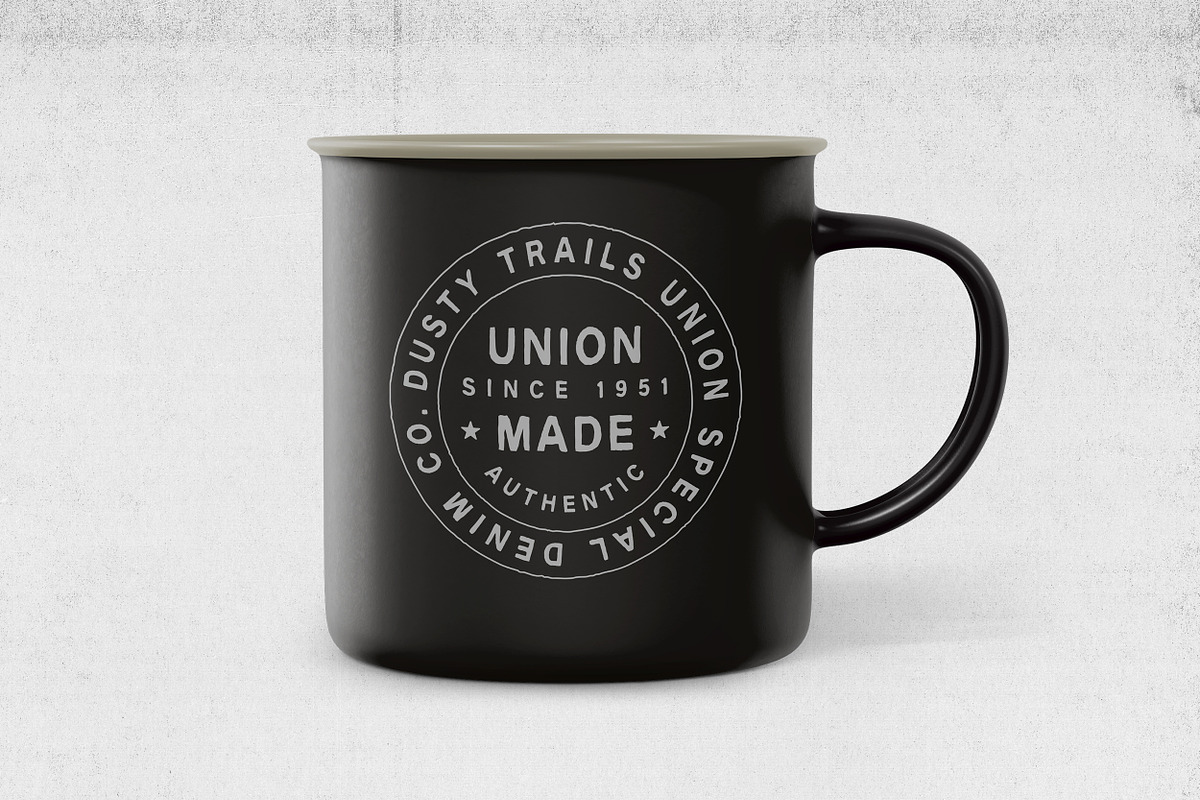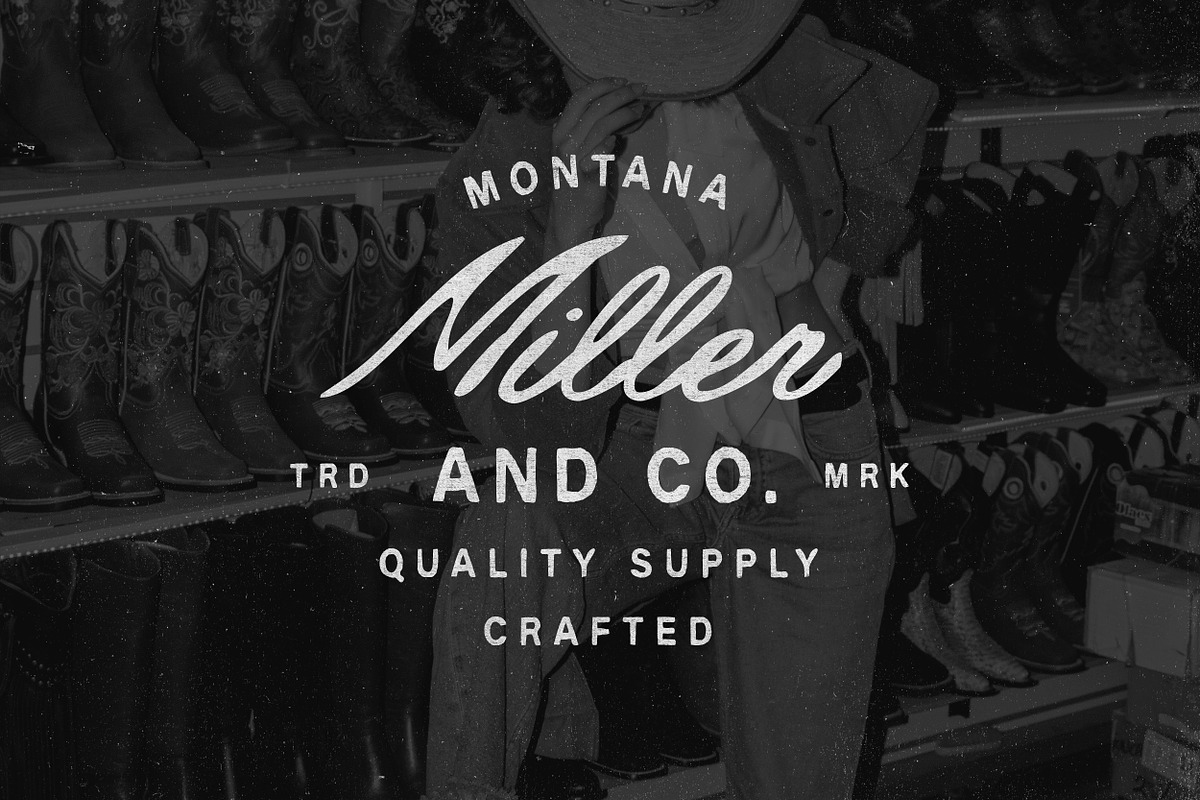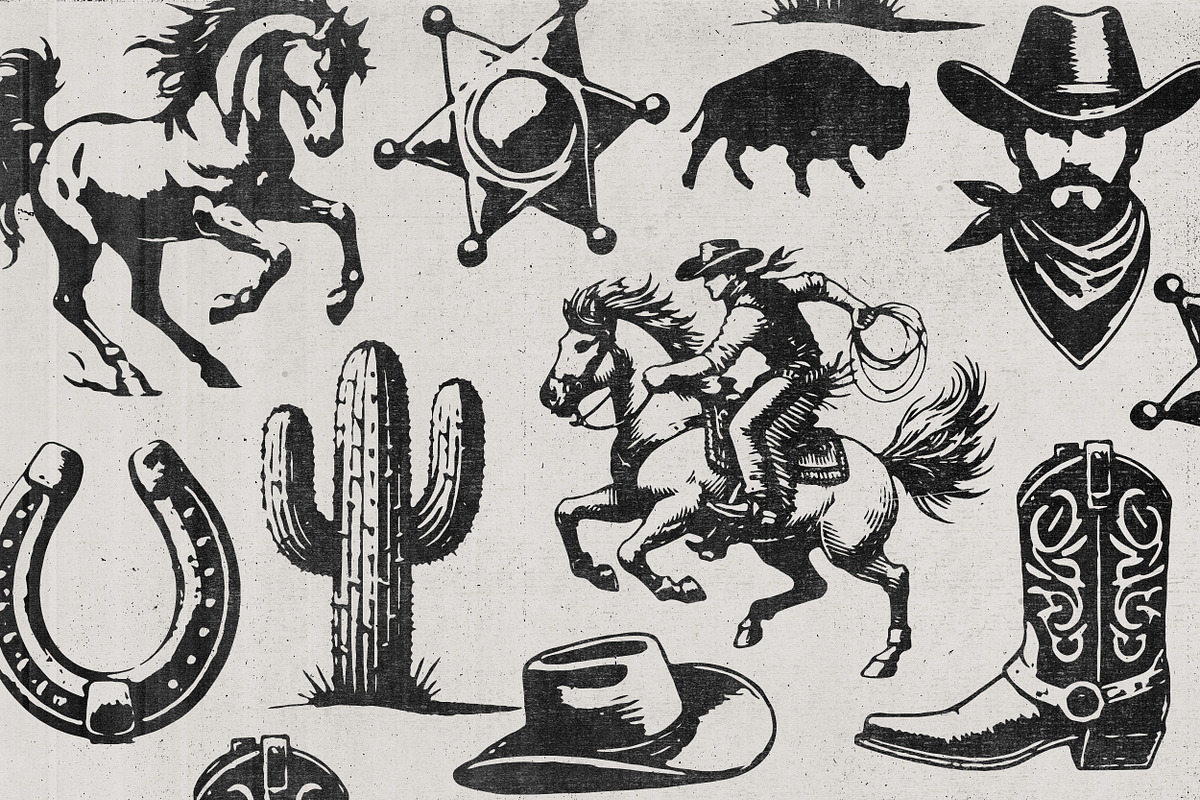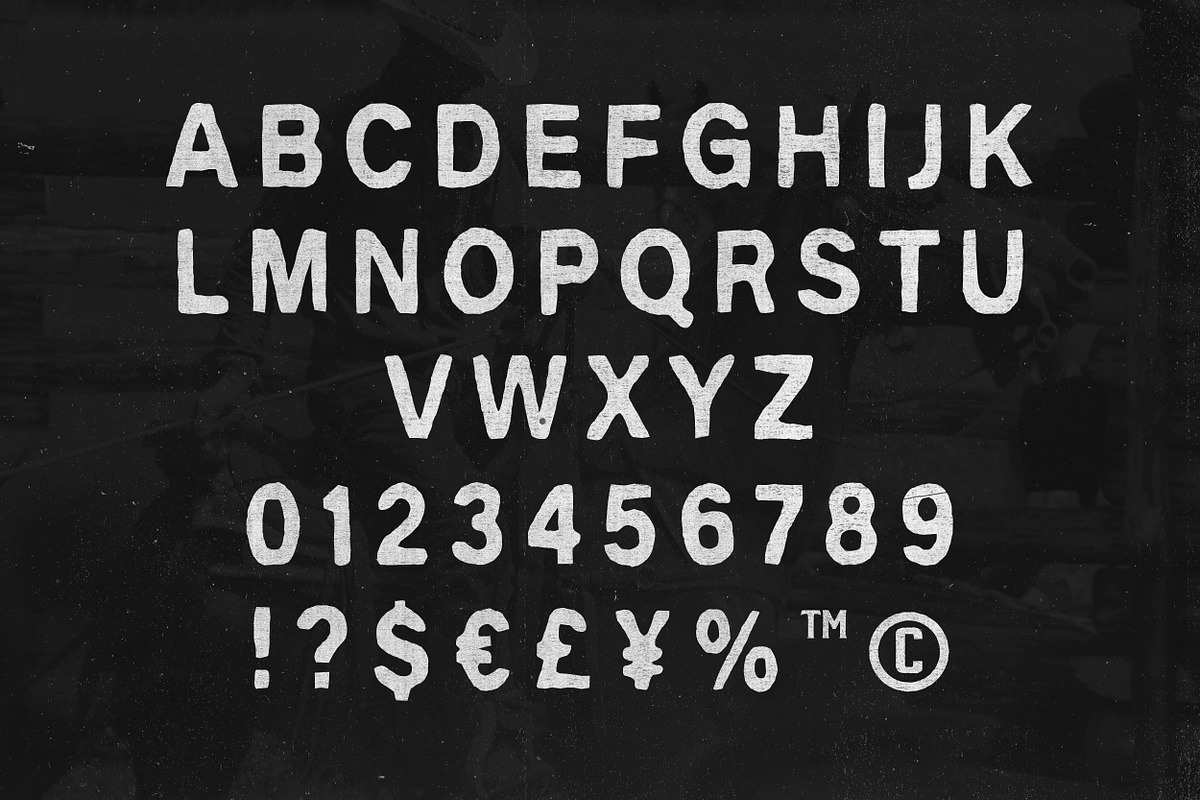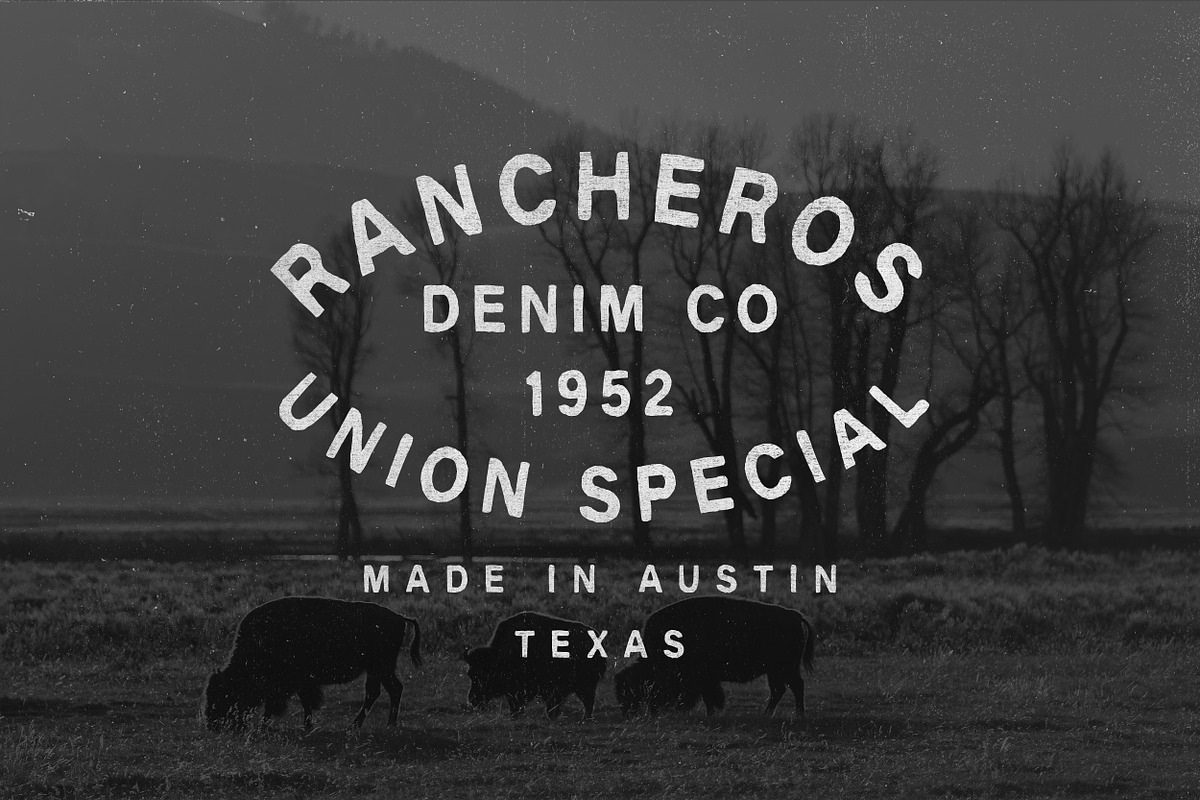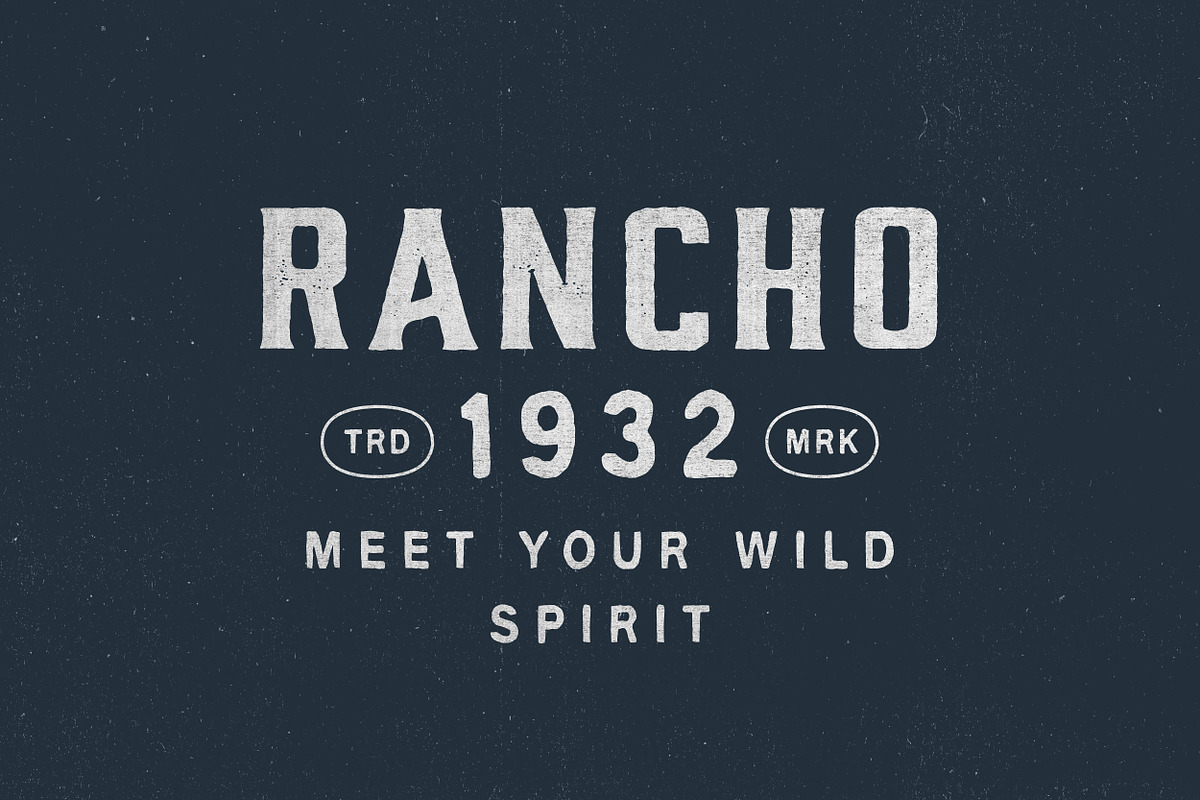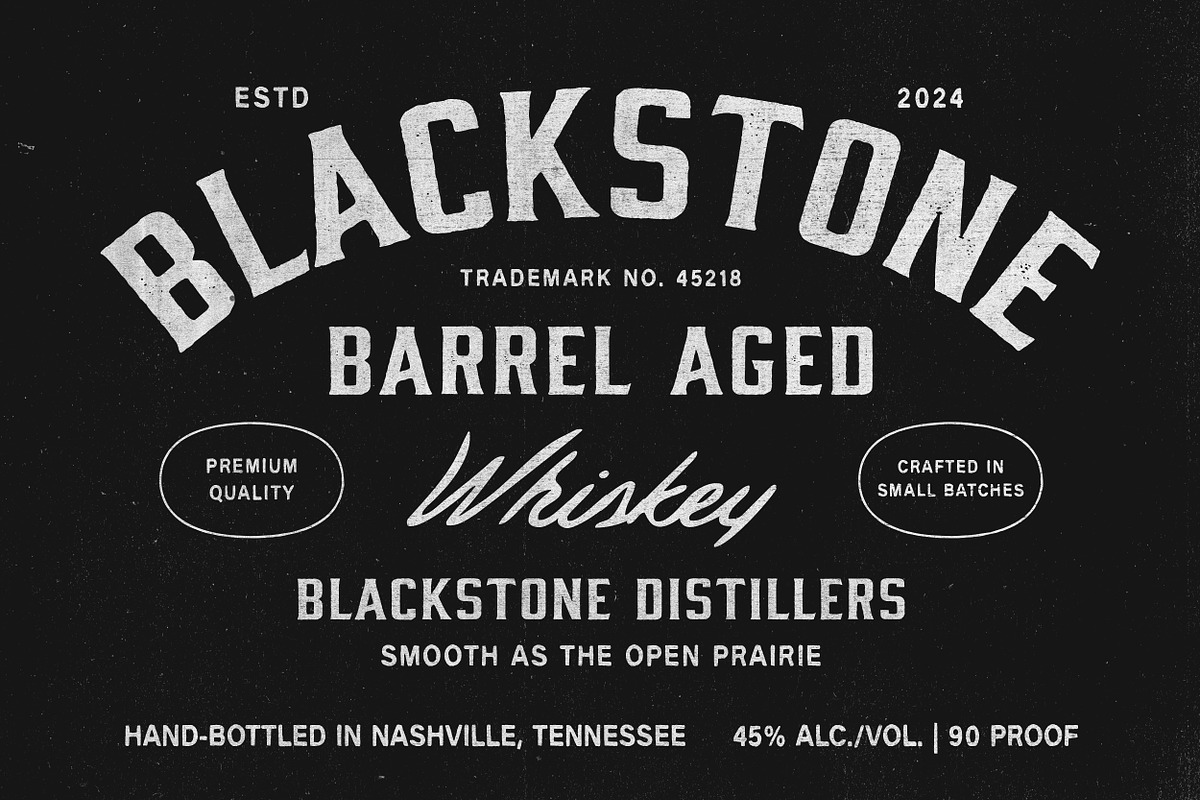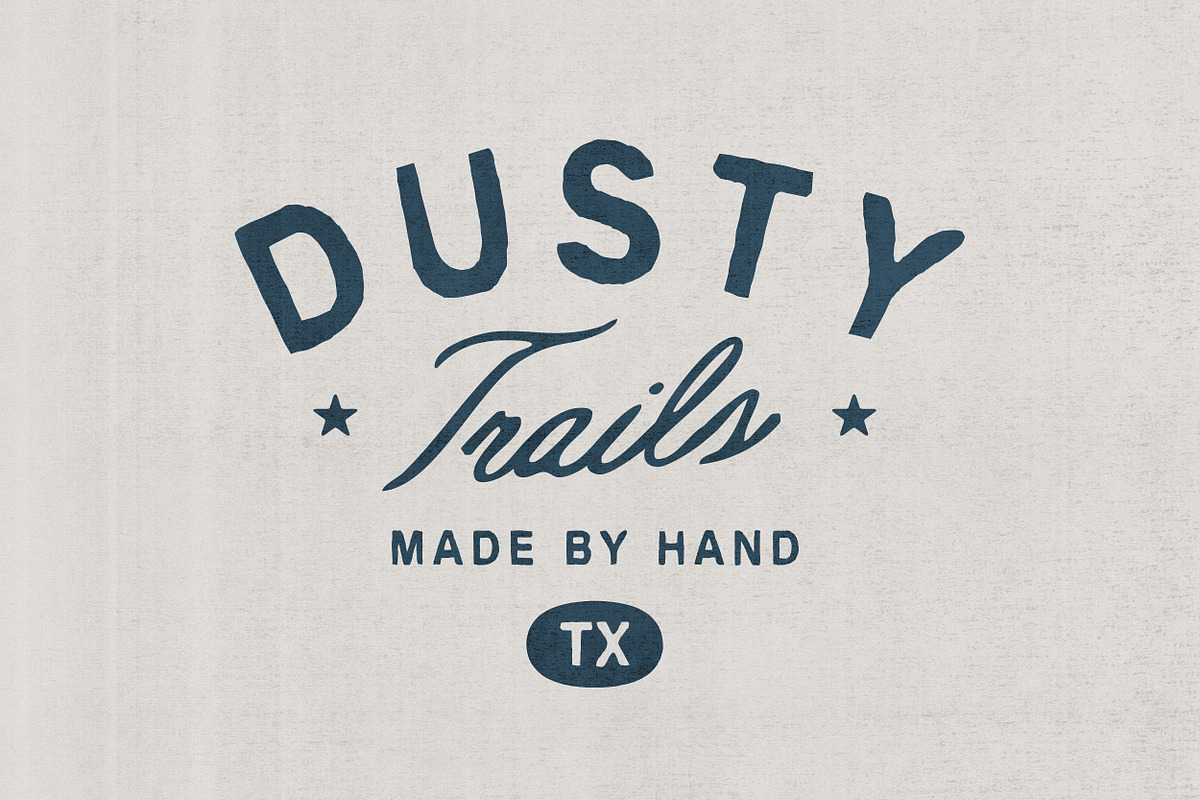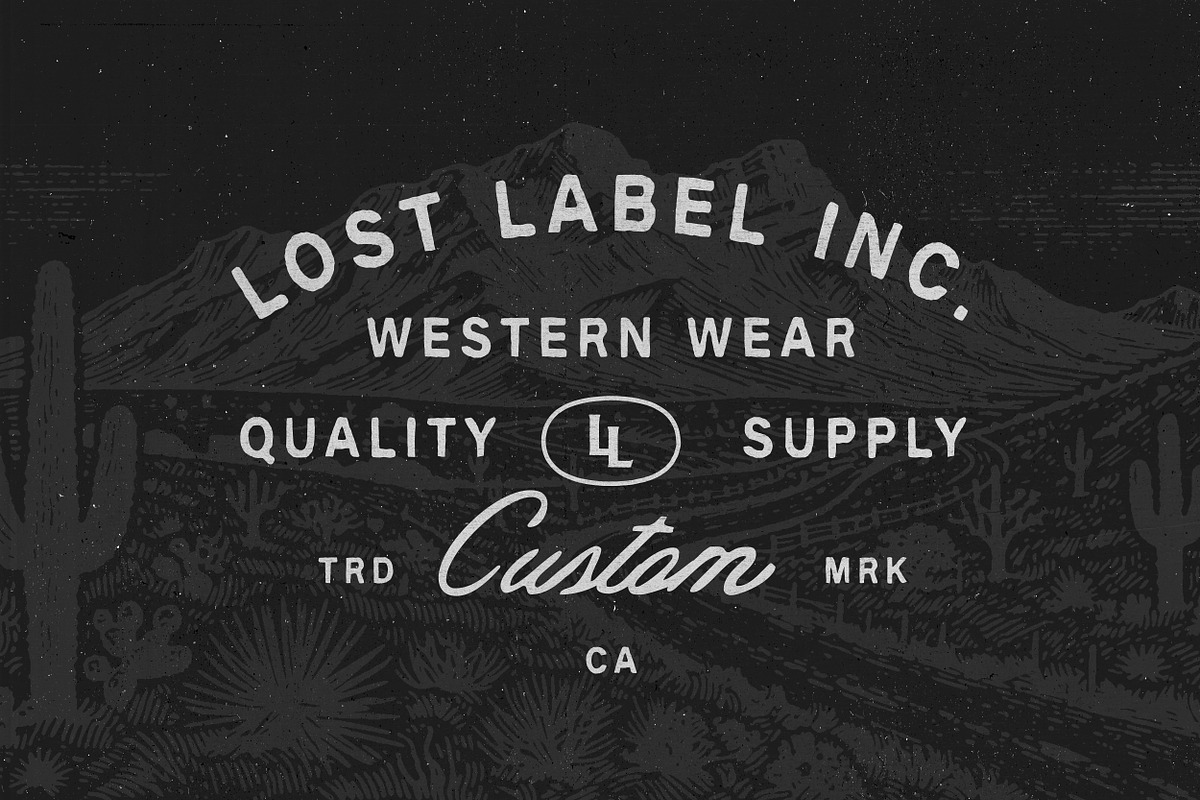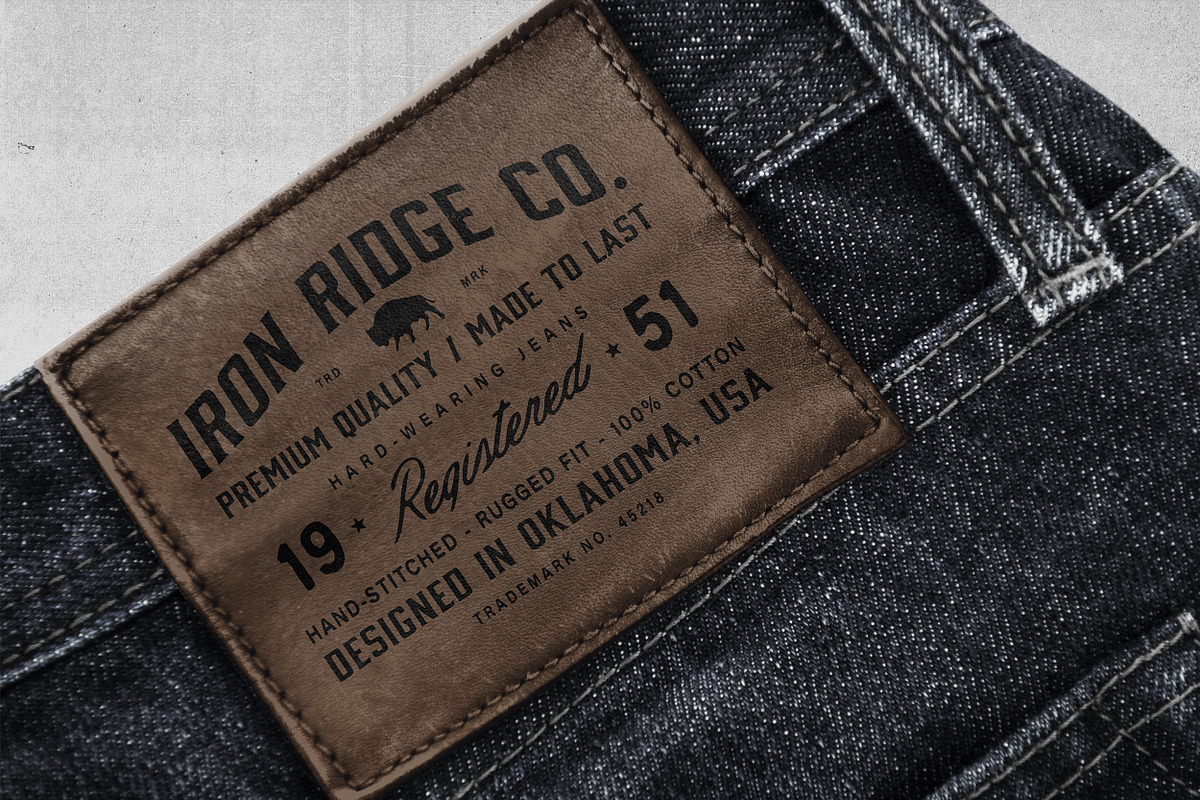
Wrangler & Extra
Get ready to saddle up with 🌵 Wrangler🌵, a bold and handcrafted font trio straight from the heart of the Southern West! Featuring three striking styles — Display, Script, and Condensed — this collection comes packed with extras: 10 hand-drawn illustrations and 12 logo templates to boost your projects!
- Wrangler Display: A bold and rugged typeface that demands attention.
- Wrangler Script: A smooth, flowing font for an authentic, hand-lettered look.
- Wrangler Condensed: A compact and stylish font ideal for tight spaces and clean designs.
Free Bonus Features:
- 10 Hand-Drawn Illustrations: Western-inspired graphics to complement your typography.
- 12 Logo Templates: Ready-to-use designs to kickstart your next project.